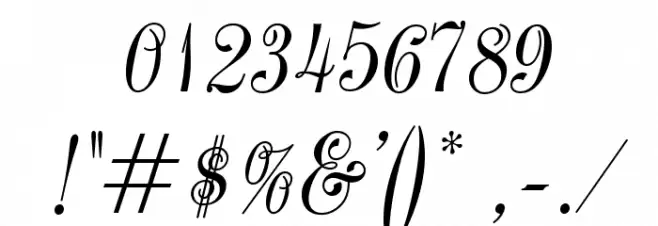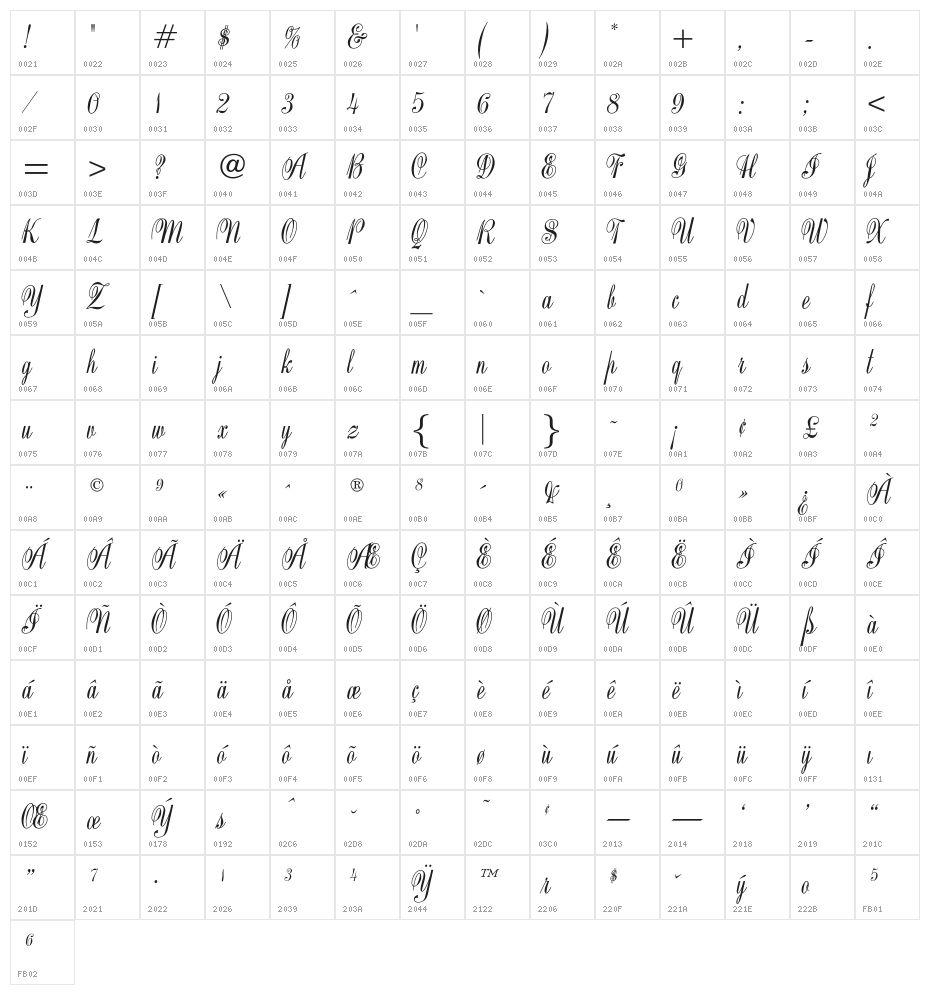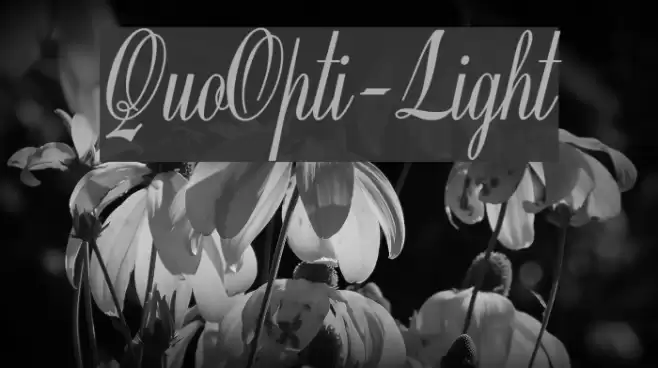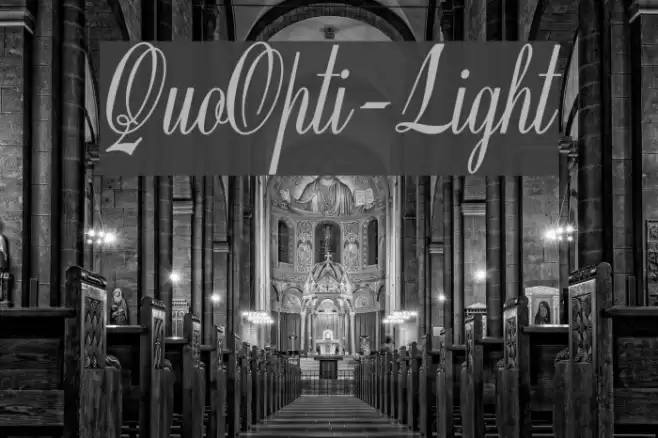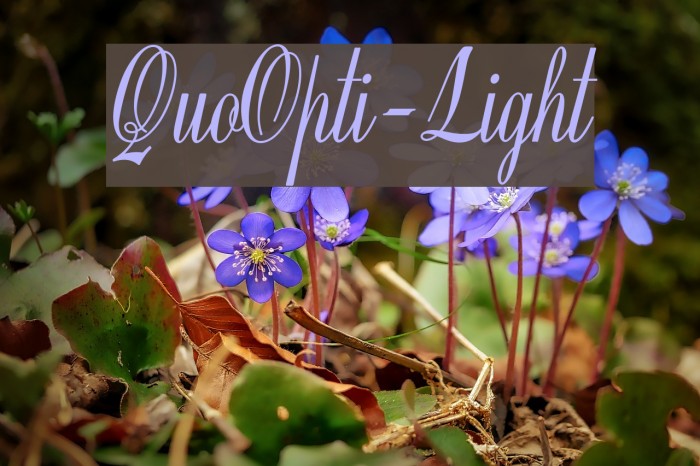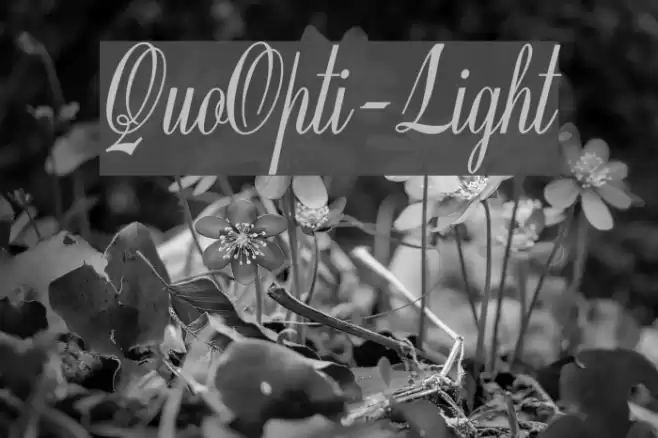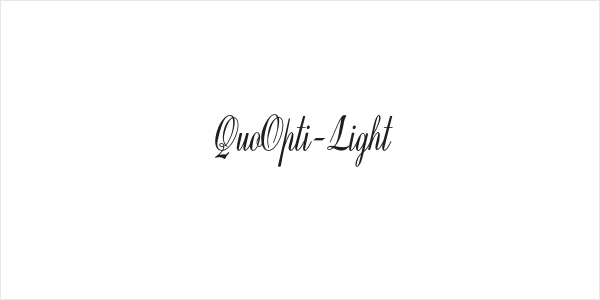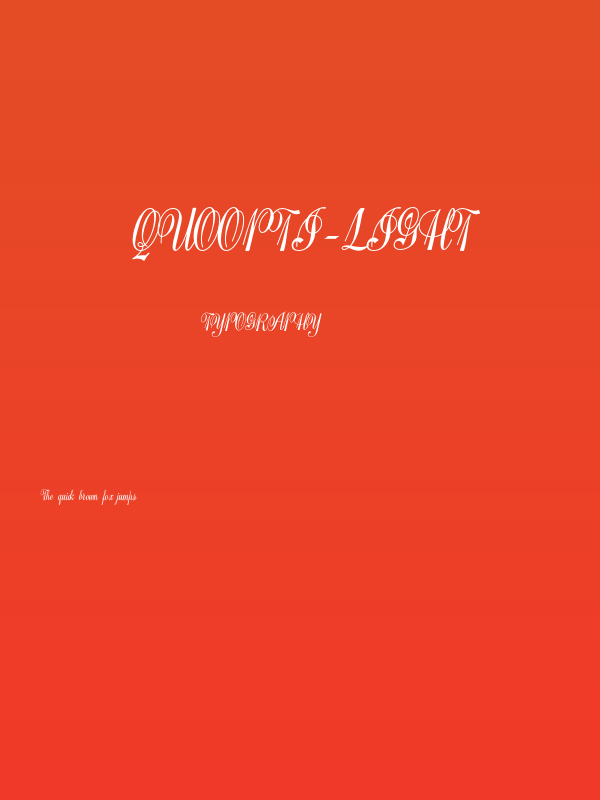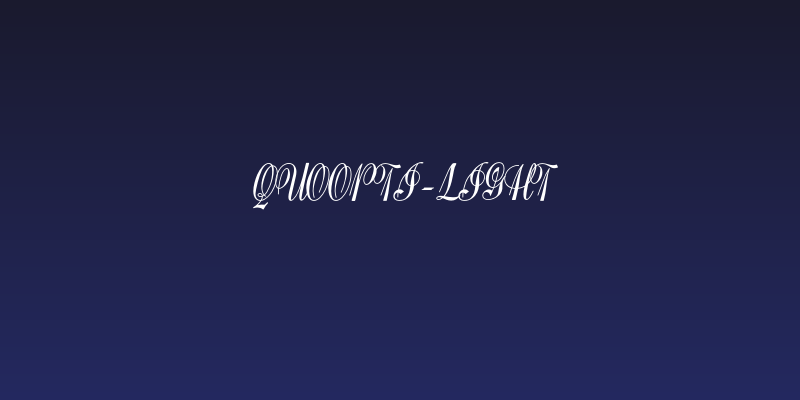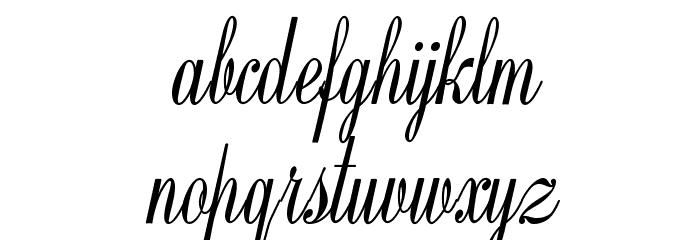
QuoOpti-Light Font
QuoOpti-Light Description
This elegant script font features flowing, cursive letterforms with a refined and sophisticated appearance. The uppercase letters are ornate, with intricate loops and flourishes that add a touch of luxury and grace. The lowercase letters maintain a consistent slant, enhancing the fluidity and continuity of the text. Numbers and special characters are designed to match the overall aesthetic, ensuring a cohesive look across all elements. The font's light weight contributes to its delicate and airy feel, making it suitable for formal invitations, branding, and decorative purposes.
| Overall Style | Elegant, Decorative |
| Use Case | Headlines, Invitations, Branding |
| Proposed Projects | Ideal for wedding invitations, luxury branding, greeting cards, and decorative headings. |